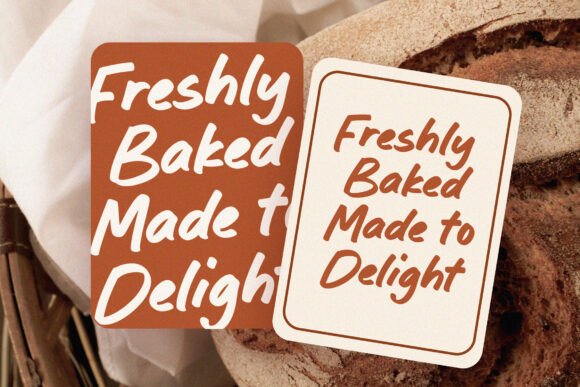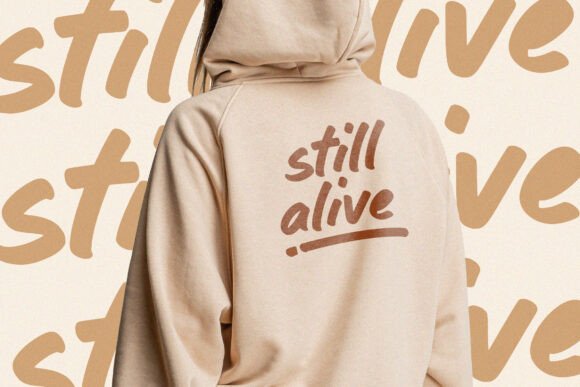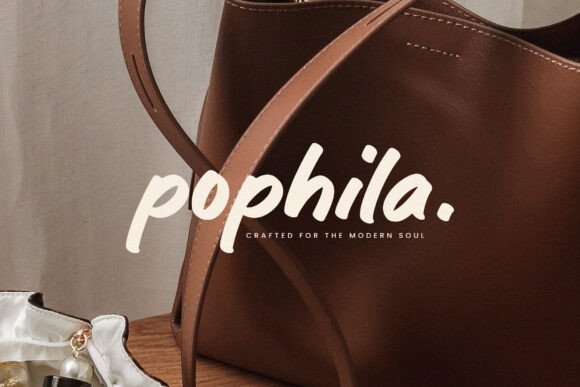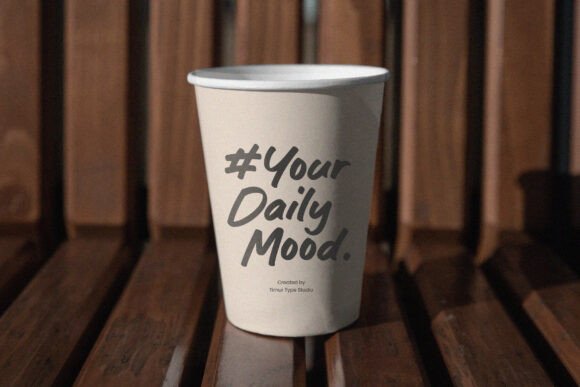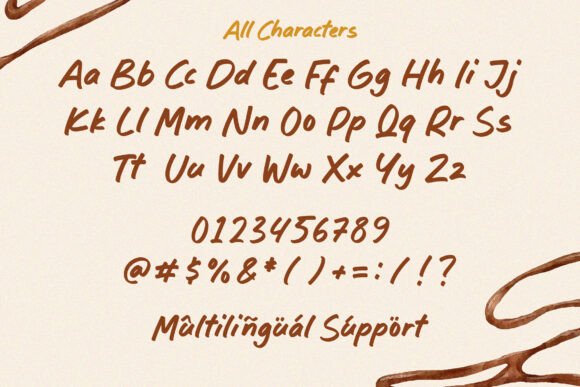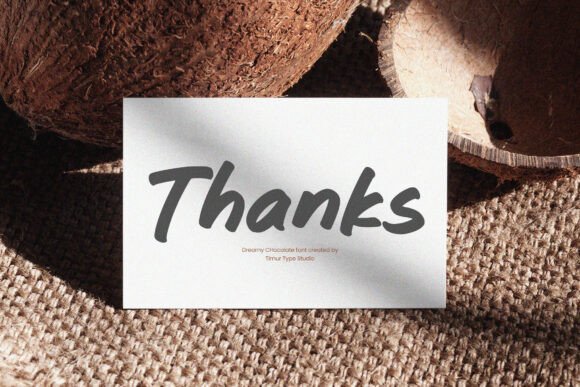
Dreamy Chocolate Font: The Sweetest Addition to Your Design Collection
Are you a designer or crafter looking for a font that embodies the warmth and playfulness of sweet treats? Look no further than the Dreamy Chocolate font! This smooth, handwritten font is inspired by the indulgent world of desserts and cozy moods, making it the perfect addition to your design collection.
The Inspiration Behind Dreamy Chocolate
Dreamy Chocolate is more than just a font – it’s an experience. Imagine strolling through a charming bakery, surrounded by the enticing aromas of freshly baked goods. The font’s playful and indulgent vibe is inspired by the joy of indulging in sweet treats and the warmth of cozy moments. Whether you’re designing a brand identity for a dessert business or creating packaging for a gourmet food product, Dreamy Chocolate is the perfect choice.
Perfect for Dessert Branding and Packaging
Dreamy Chocolate is specifically designed with dessert branding and packaging in mind. The font’s smooth, cursive lines and rounded edges evoke the feeling of rich, velvety chocolate and the warmth of a cozy bakery. Use it to create eye-catching labels, business cards, or social media graphics that will make your dessert business stand out.
Adding a Touch of Whimsy to Quotes and Lifestyle Blogs
But Dreamy Chocolate is more than just a one-trick pony. Its playful and indulgent vibe also makes it perfect for adding a touch of whimsy to quotes, lifestyle blogs, and social media posts. Imagine pairing a beautiful quote about the joys of life with a gorgeous image of a decadent dessert – the result is a visually stunning and engaging graphic that will capture your audience’s attention.
Key Features of Dreamy Chocolate Font
- Smooth, handwritten lines: Dreamy Chocolate features smooth, cursive lines that give it a luxurious and indulgent feel.
- Playful and whimsical vibe: The font’s playful and whimsical vibe makes it perfect for dessert branding, packaging, and lifestyle blogs.
- Rounded edges: The font’s rounded edges give it a soft, warm feel that’s reminiscent of cozy bakeries and sweet treats.
- Easy to read: Despite its playful vibe, Dreamy Chocolate is easy to read and works well in a variety of contexts, from body text to headings.
How to Use Dreamy Chocolate in Your Designs
So, how can you use Dreamy Chocolate in your designs? Here are a few ideas to get you started:
- Pair it with bold graphics: Pair Dreamy Chocolate with bold graphics or images to create a visually striking design.
- Use it for headings and titles: Use Dreamy Chocolate for headings and titles to add a touch of whimsy and personality to your designs.
- Mix it with other fonts: Mix Dreamy Chocolate with other fonts to create a unique and eye-catching design.
In conclusion, Dreamy Chocolate is a smooth, handwritten font that’s perfect for designers and crafters looking to add a touch of whimsy and indulgence to their designs. With its playful and indulgent vibe, rounded edges, and smooth lines, it’s the perfect choice for dessert branding, packaging, quotes, and lifestyle blogs. So why wait? Download Dreamy Chocolate today and start creating your own sweet designs!